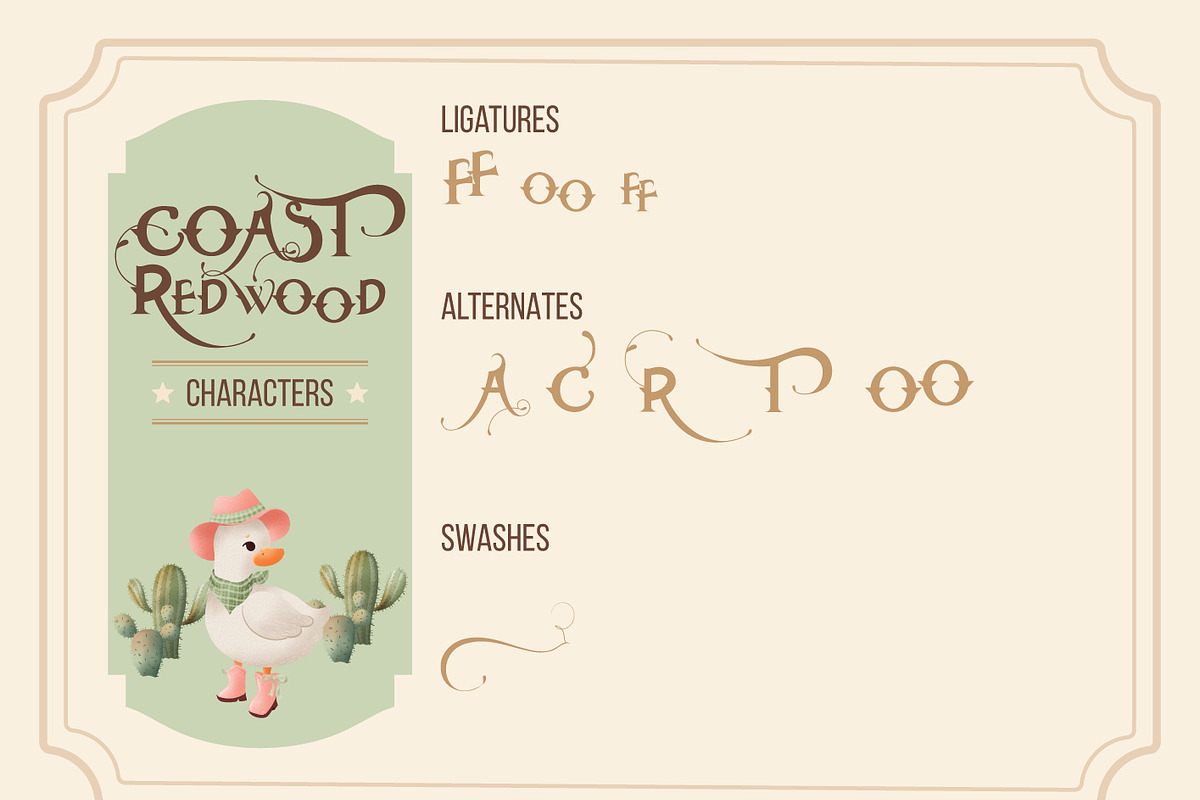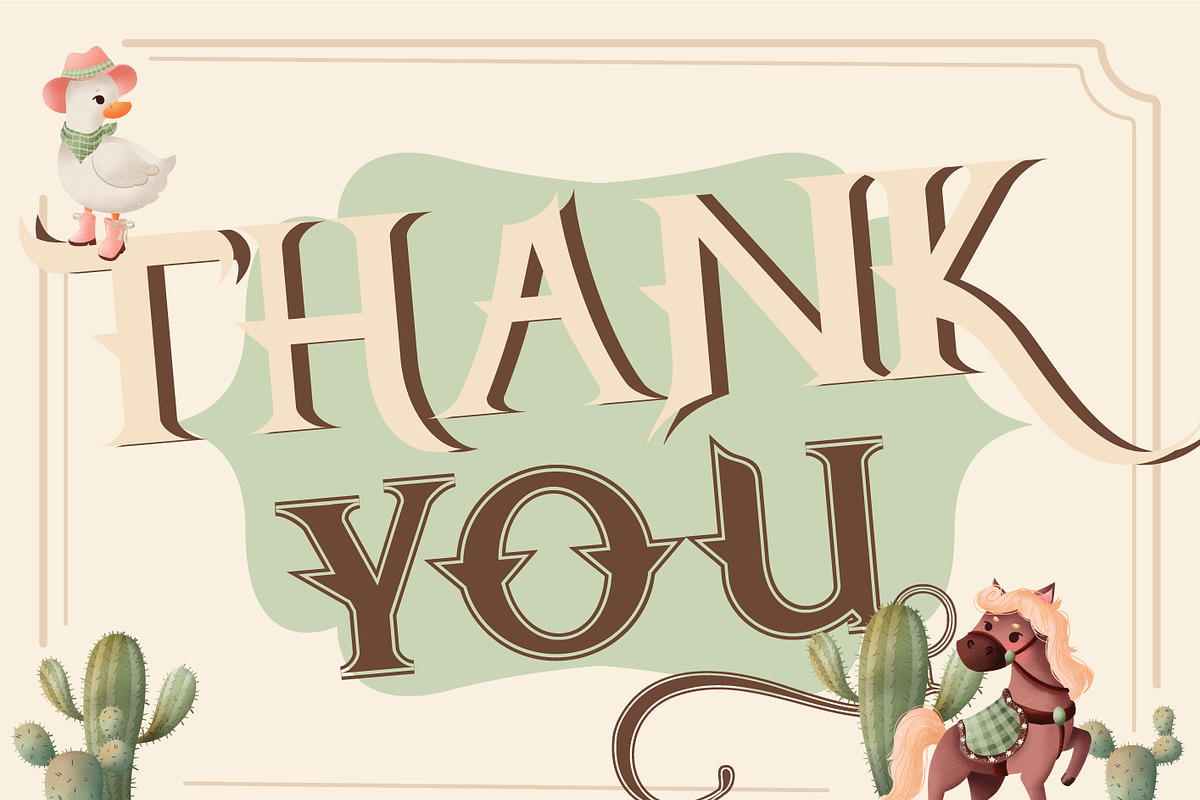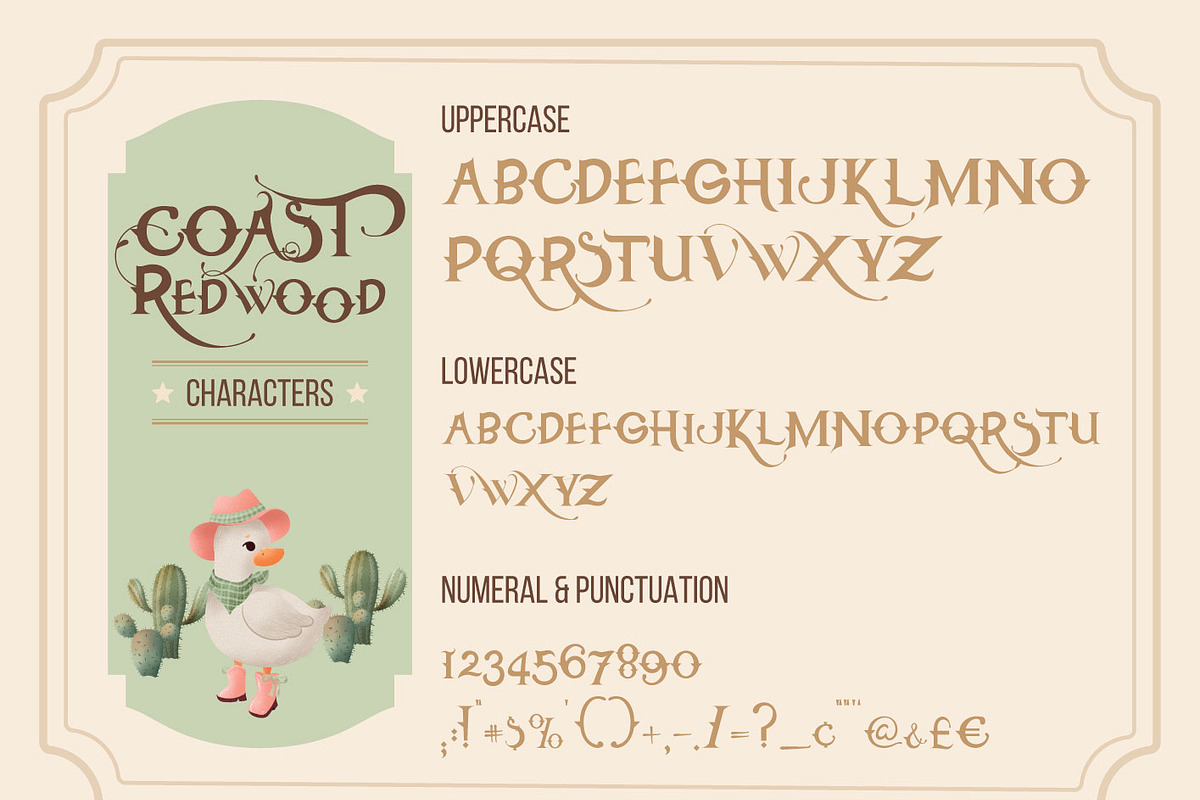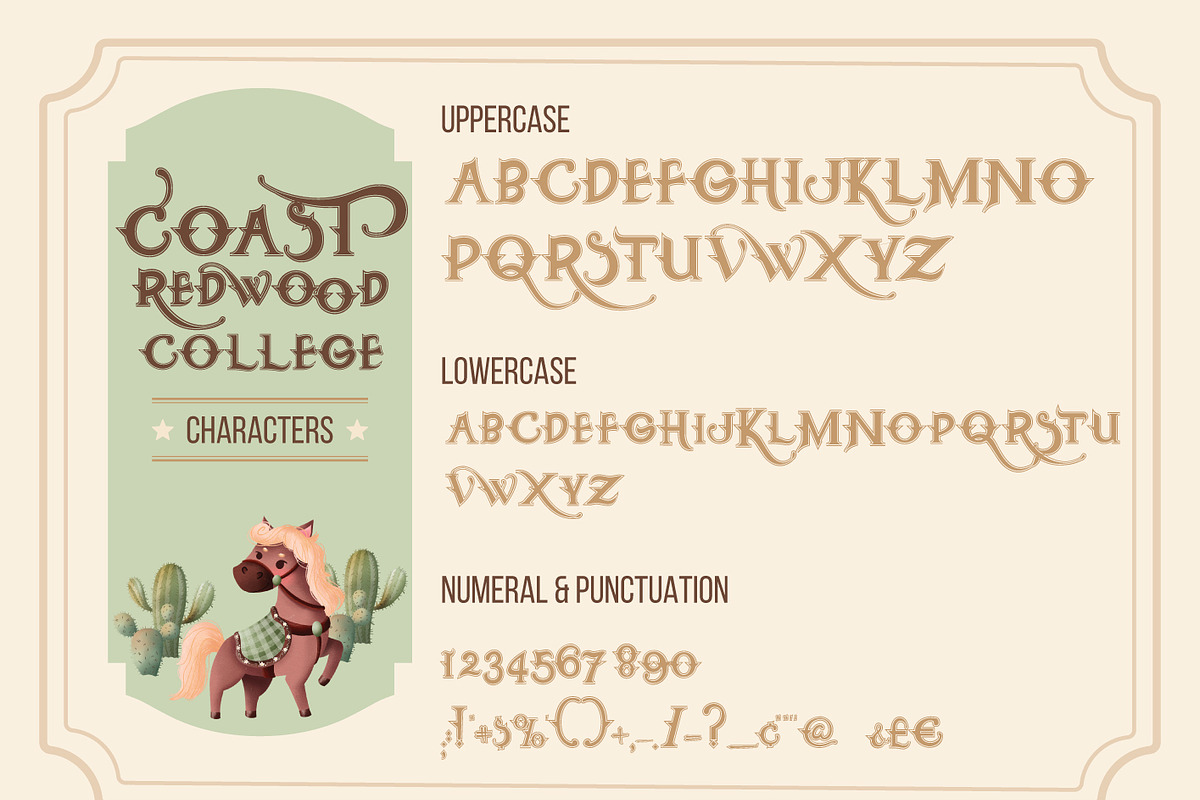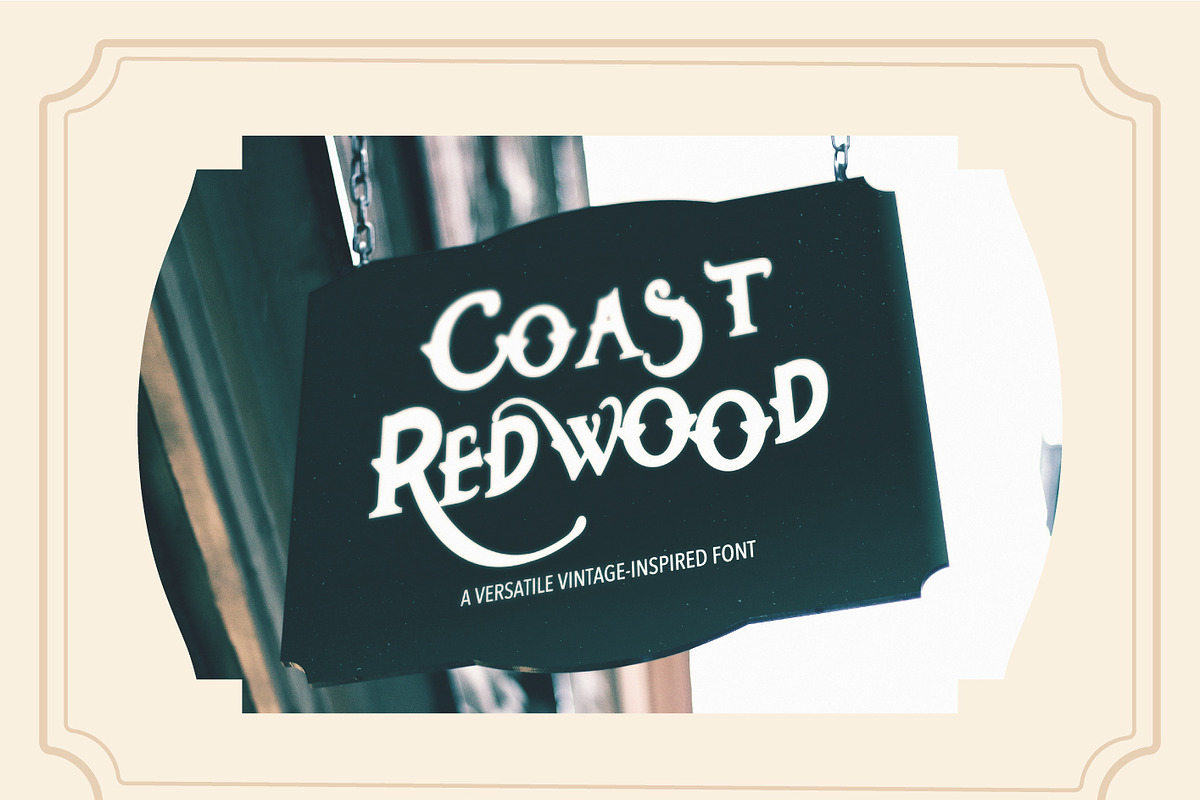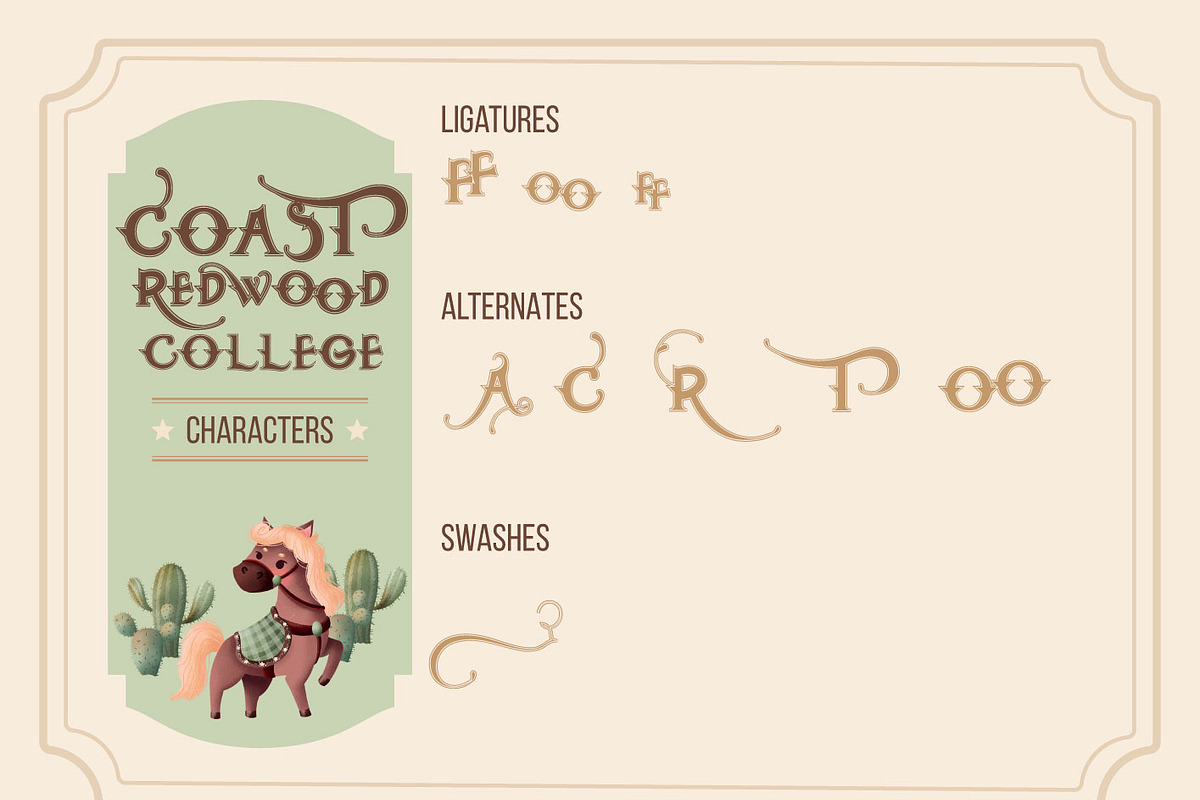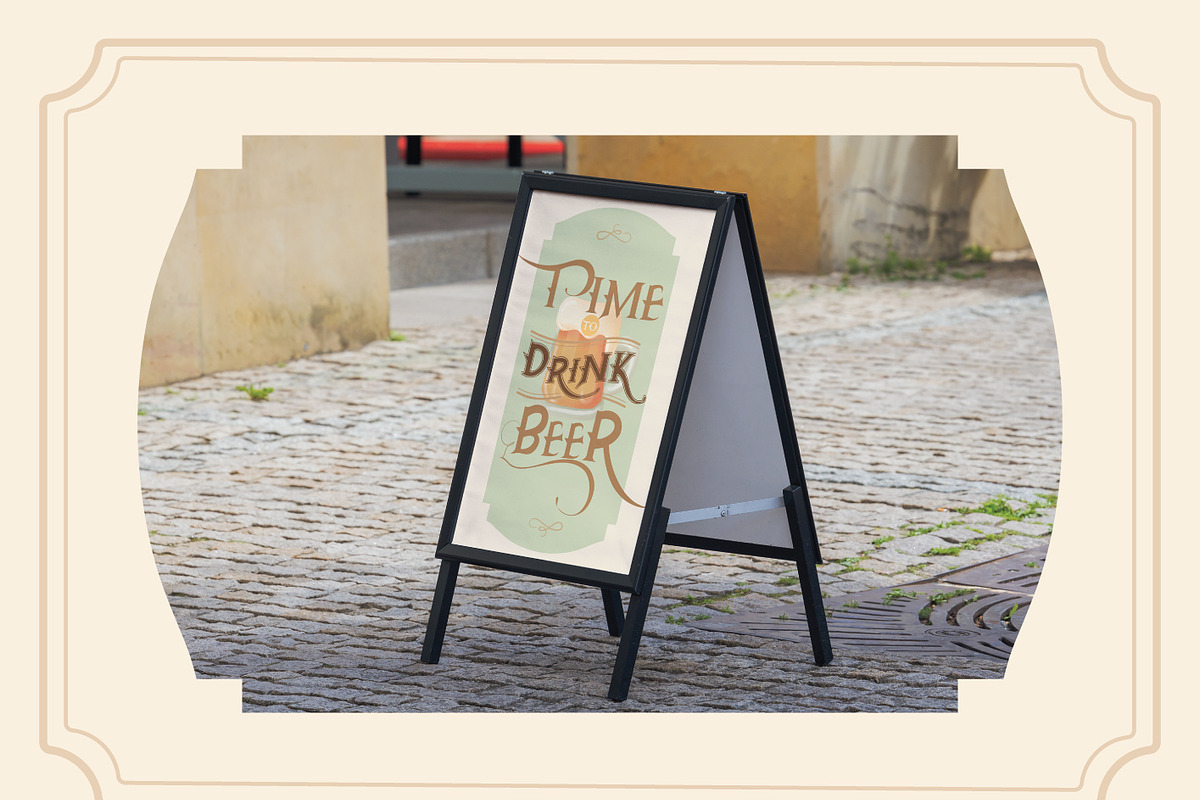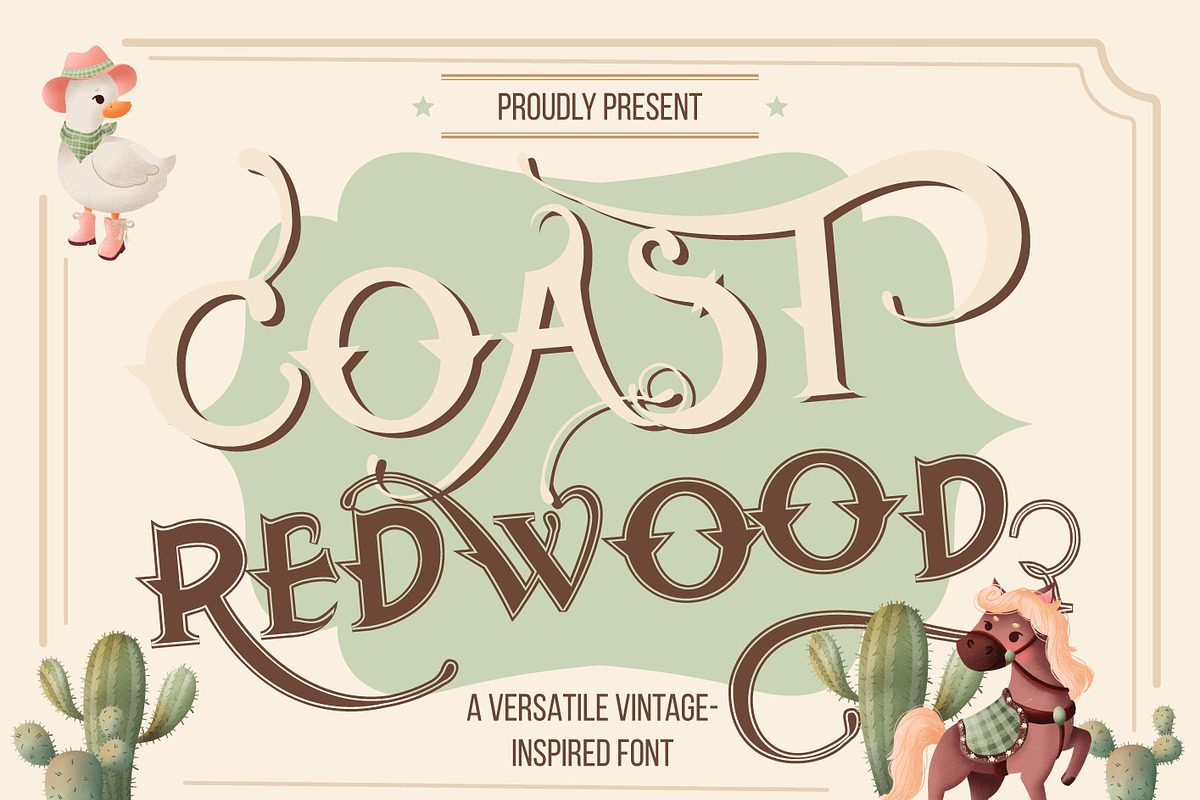
Coast Redwood
Coast Redwood is inspired by western typeface.
They are perfect to use for: logos, branding, home decor, signs, mugs, shirts, pantry labels, stickers, greeting cards, posters, social media, planner prints, and etc. Just have a great fun with Coast Redwood on your design!
Coast Redwood (UPPERCASE,LowerCase,Numeric,Punctuation,Ligature characters, Alternate characters)
Coast Redwood College (UPPERCASE,LowerCase,Numeric,Punctuation,Ligature characters, Alternate characters)